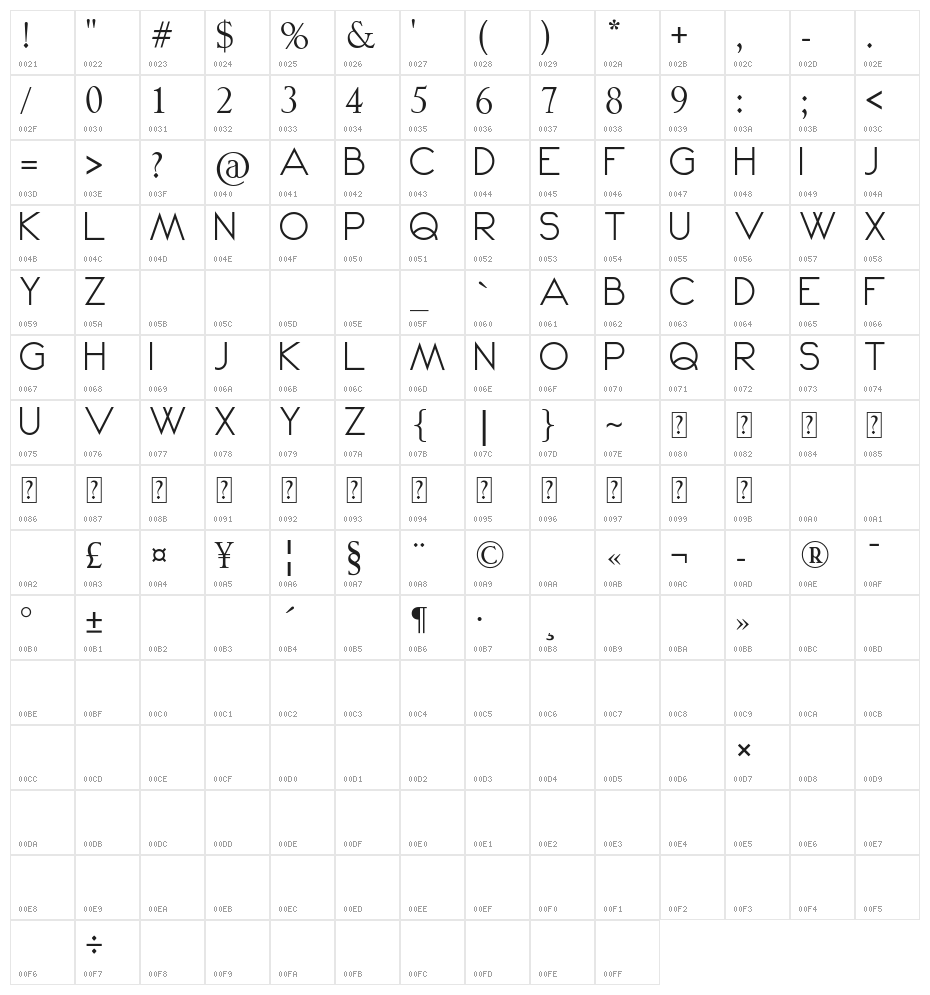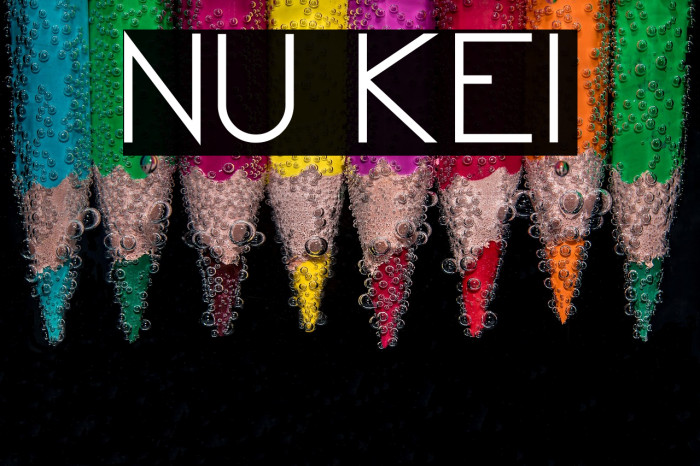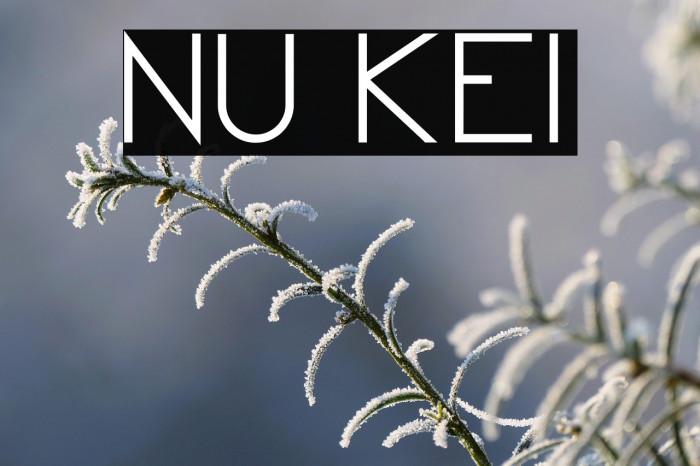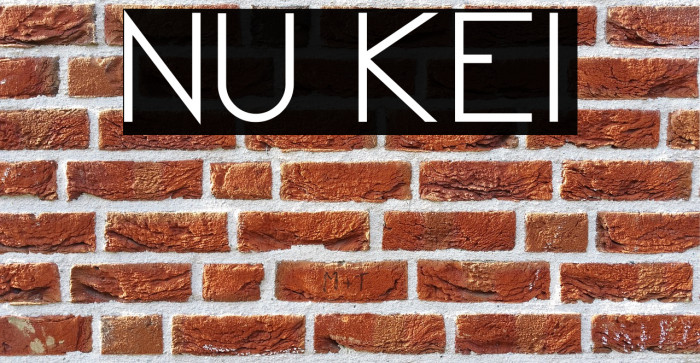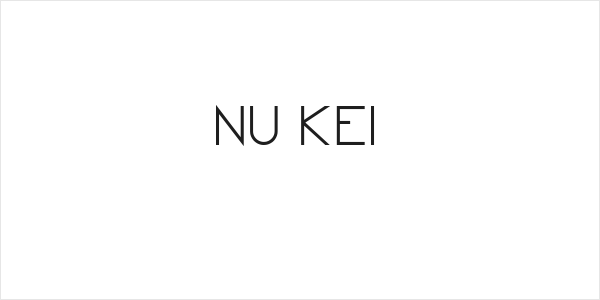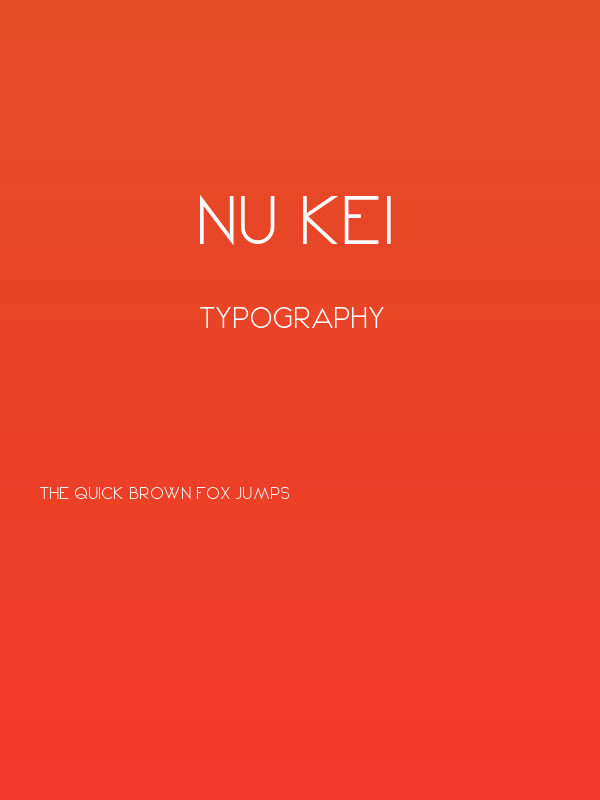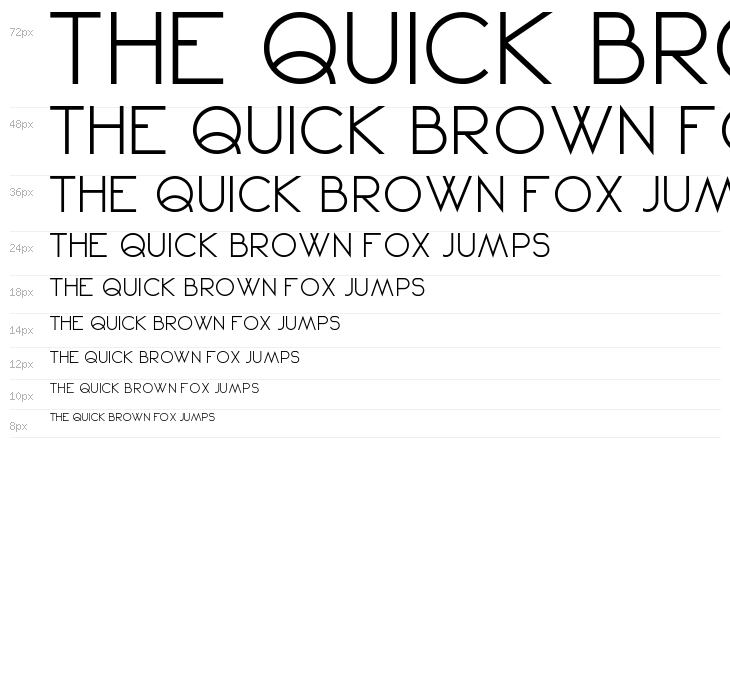
Nu Kei Font
Nu Kei Description
This font features a clean and modern design with a geometric sans-serif style. The uppercase letters are uniform in height, with a consistent stroke width that gives a balanced and harmonious appearance. The lowercase letters maintain the same geometric precision, offering a seamless transition between characters. The numerals are distinct and easy to read, with a slightly more rounded appearance that complements the overall style. Special characters are included, maintaining the same geometric and modern aesthetic. This font is versatile, suitable for both digital and print media, and can be used effectively in various design projects.